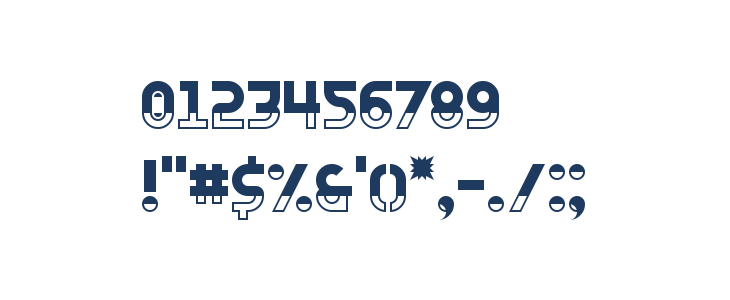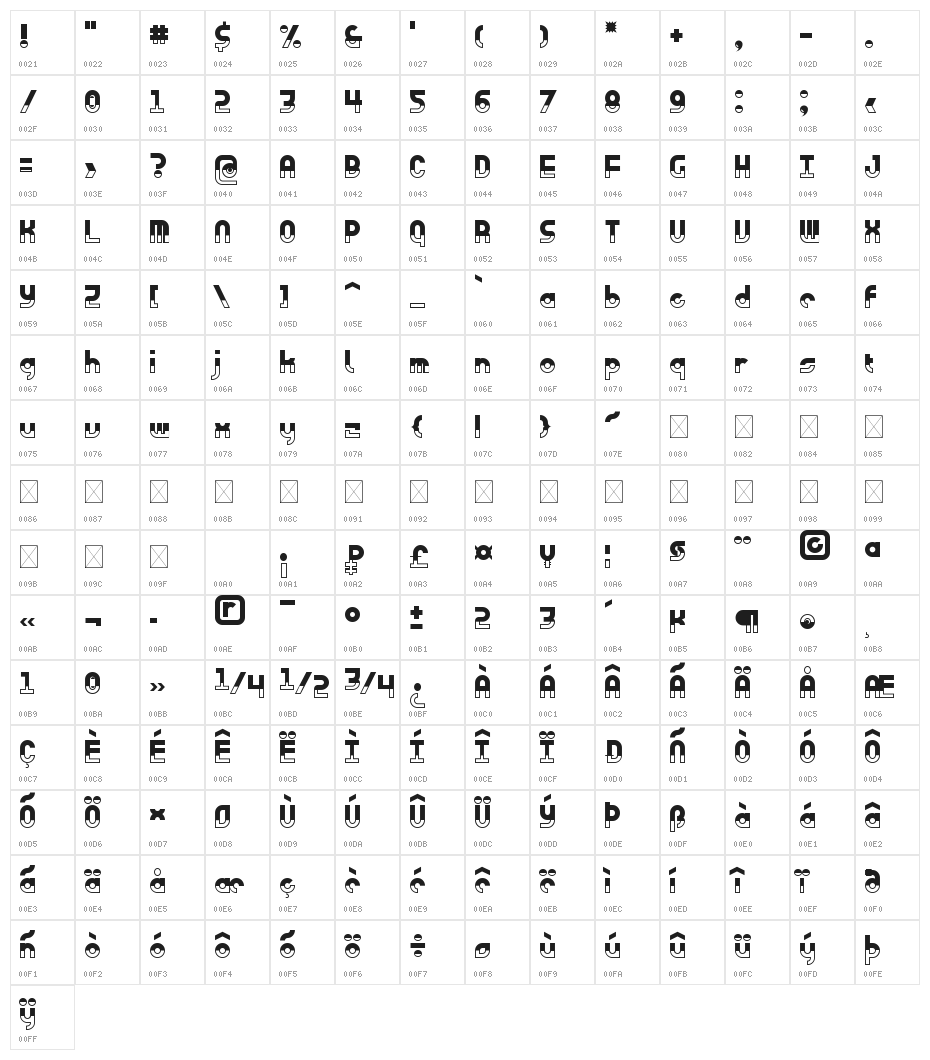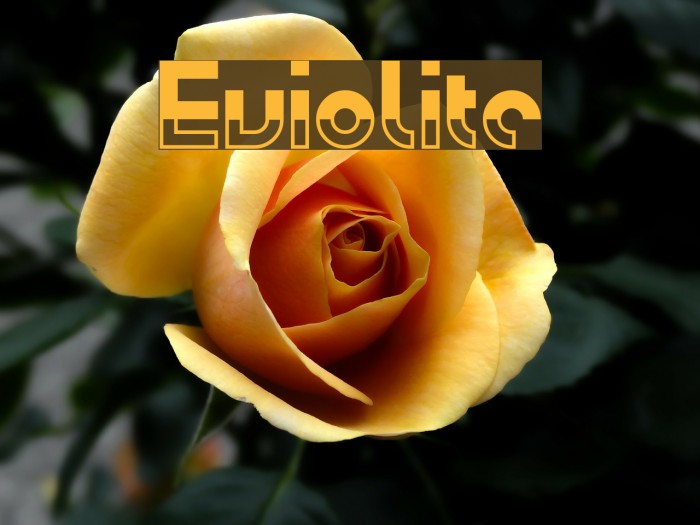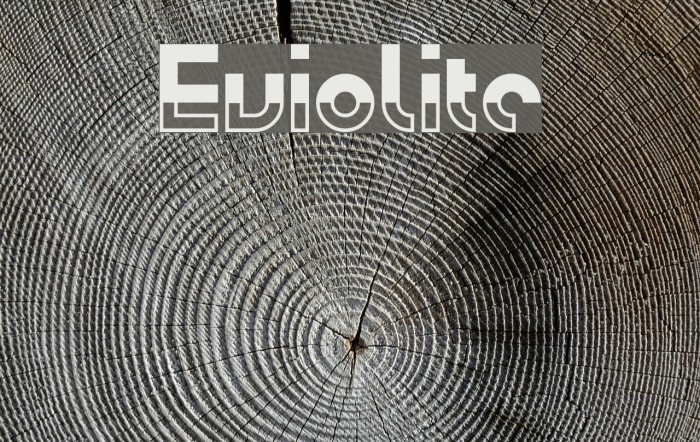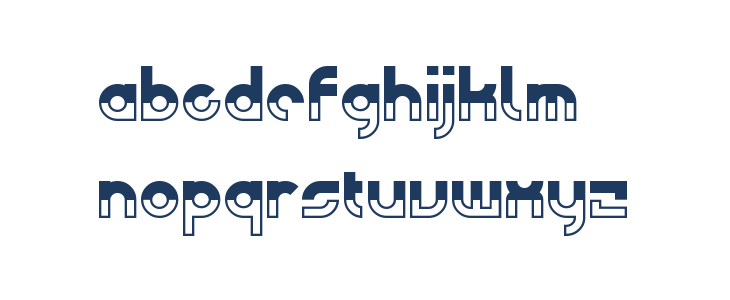
Eviolite Font
Eviolite Description
This font features a bold, geometric design with a futuristic flair. Each character is crafted with a unique blend of solid and outlined elements, creating a striking visual contrast. The uppercase letters are particularly bold, with a strong presence that commands attention. The lowercase letters maintain the same geometric style, offering a cohesive look across the typeface. Numbers and special characters are designed with the same attention to detail, ensuring consistency throughout. The font's style is both modern and decorative, making it suitable for a variety of creative applications.